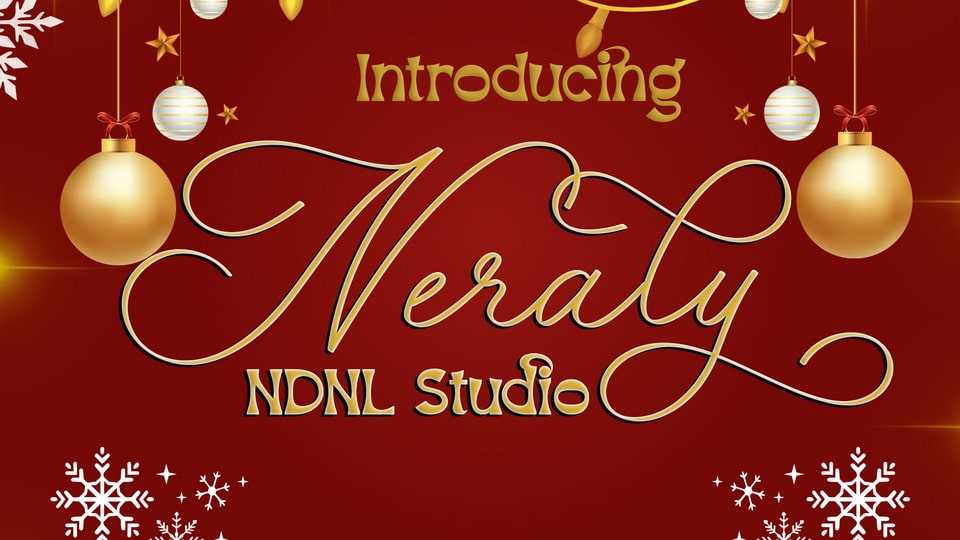
Download Neraly font, an elegant script typeface with graceful curves and artistic flow, infused with the warm and magical spirit of the holiday season.